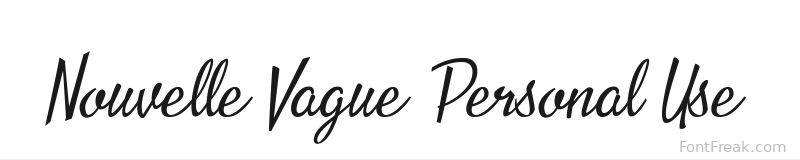
Nouvelle Vague Personal Use
Nouvelle Vague Personal Use is a captivating script font designed by Billy Argel Fonts, characterized by its elegant and flowing letterforms. This font belongs to the script category, showcasing a distinct handwritten style that conveys a sense of personal touch and warmth. The strokes exhibit a moderate contrast, with a graceful interplay between thick and thin lines, enhancing its visual appeal. The spacing is thoughtfully balanced, allowing for seamless readability while maintaining an artistic flair.
This versatile font is particularly well-suited for several creative applications. Wedding invitations benefit from its romantic and intimate feel, making it a perfect choice for couples looking to add a personal touch to their special day. Additionally, Nouvelle Vague is ideal for crafting movie posters, where its dynamic and stylish script can effectively convey the theme and mood of the film. Restaurant menus can also uniquely benefit from this font, providing an inviting atmosphere that complements gourmet dishes. Moreover, content creators can use this font in social media graphics and branding, enhancing their visual narrative with a sophisticated yet approachable style.
In conclusion, Nouvelle Vague Personal Use stands out due to its beautiful, flowing script that effortlessly blends elegance and readability. Its versatility across various applications, combined with its artistic qualities, makes it a valuable addition to any designer's toolkit. For those interested, the Nouvelle Vague Personal Use font free download is an excellent opportunity to explore this stunning typeface.